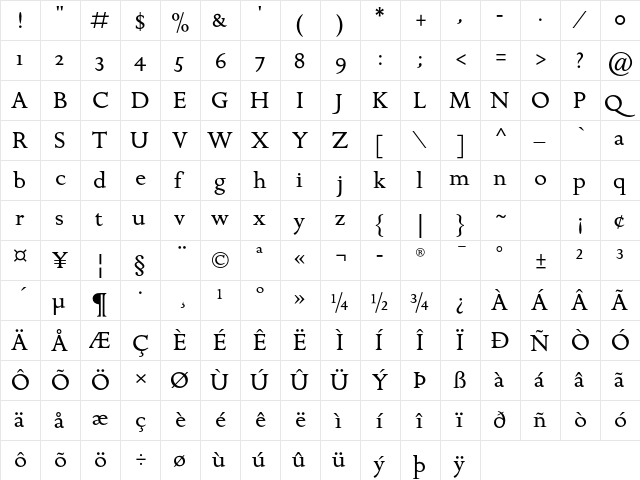
Golden Cockerel ITC Std Regular Font Preview
Golden Cockerel ITC Std Regular
Golden Cockerel ITC Std Regular Font Details
| Designer | Dave Farey/Richard Dawson |
Design Context for Golden Cockerel ITC Std Typeface
Golden Cockerel ITC Std offers clean, dependable letterforms without strong stylistic allegiance, making it a practical choice for designers who need flexibility.